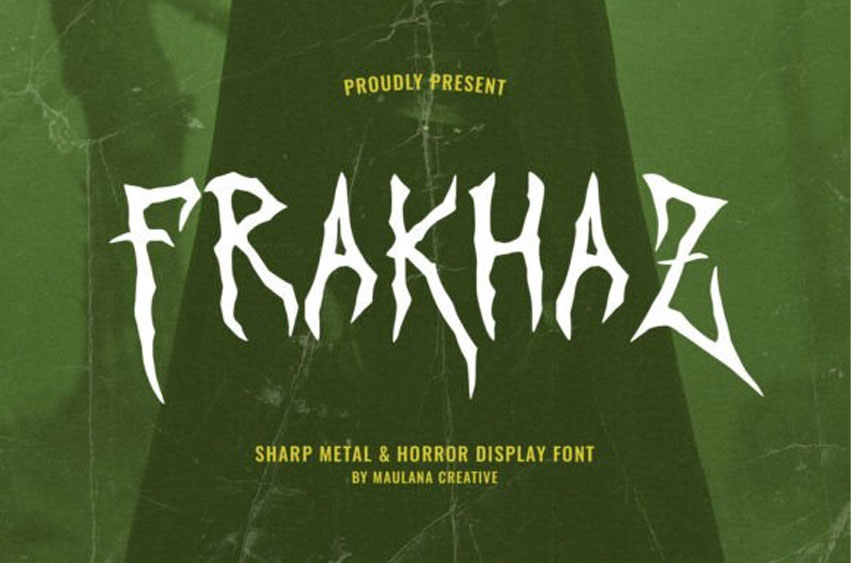
Frakhaz Font Unleash the darkness with Frakhaz, an aggressive and razor-sharp display font designed for projects that need to scream. Inspired by the raw energy of underground Heavy Metal culture and the chilling aesthetics of classic horror movies, Frakhaz features jagged, thorn-like strokes that give every word a lethal edge.
Whether you are designing a death metal band logo, a spine-tingling horror movie poster, or edgy streetwear apparel, this font provides the perfect balance of chaos and legibility. Its hand-drawn, visceral feel ensures your branding stands out with a brutal, authentic personality.